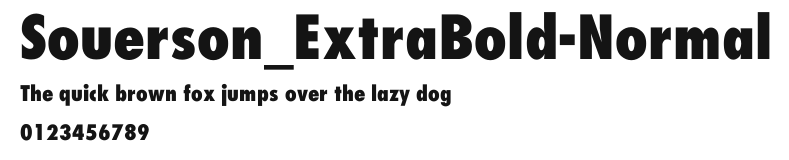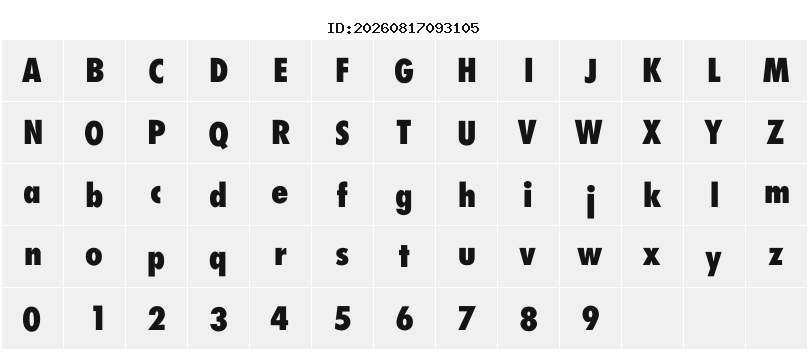
Souerson_ExtraBold-Normal Preview
• Font Name: Souerson_ExtraBold-Normal
• Full Font Name: Souerson_ExtraBold-Normal
• PostScript Name: Souerson_ExtraBold-Normal
About Souerson_ExtraBold-Normal.ttf
Souerson_ExtraBold-Normal.ttf is a modern, elegant sans-serif font designed for ultimate readability and visual harmony. Perfect for branding, headlines, web design, and print materials.